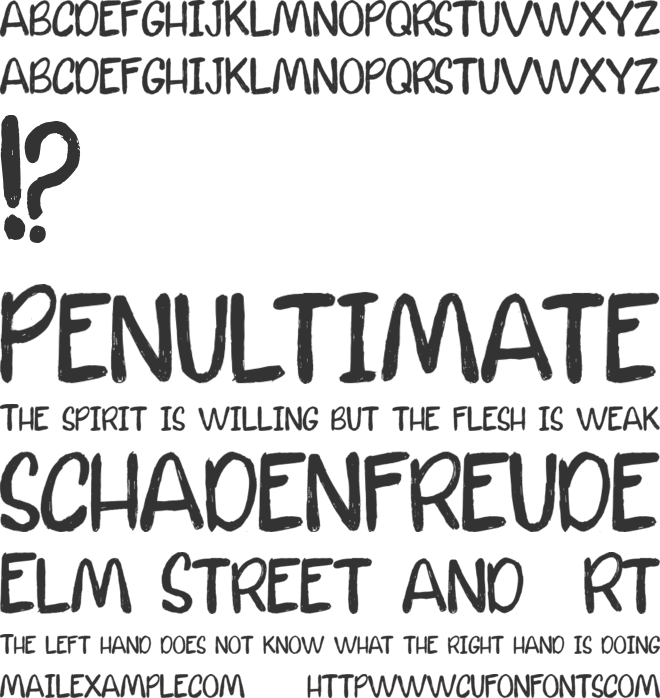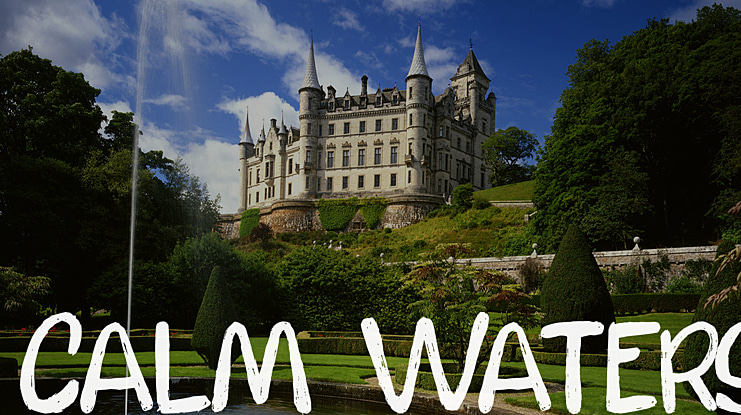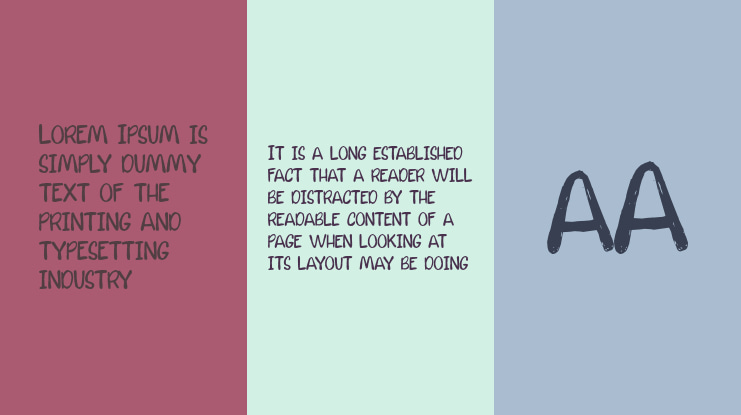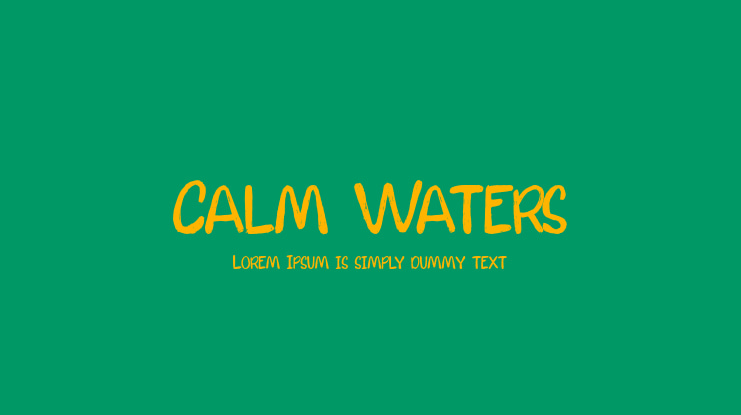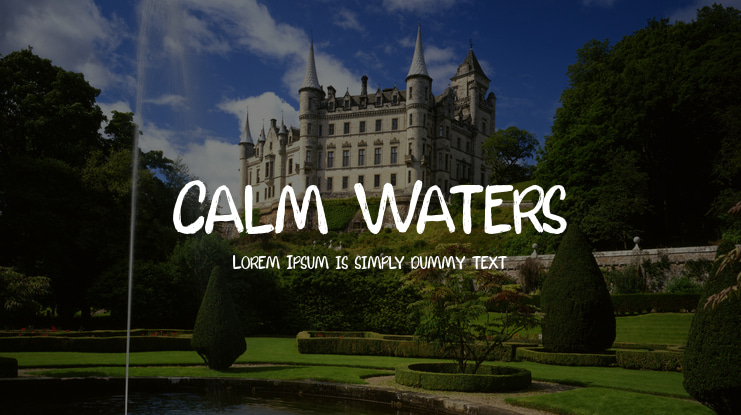
Calm Waters Font
Calm Waters! A playful yet readable handwritten font with a charm of its own. With its "pen-stylized" effect, Calm Waters is perfect for branding projects, product packaging, brochures, magazines, videos, band names, etc.- or simply as an overlayed text to any background image.